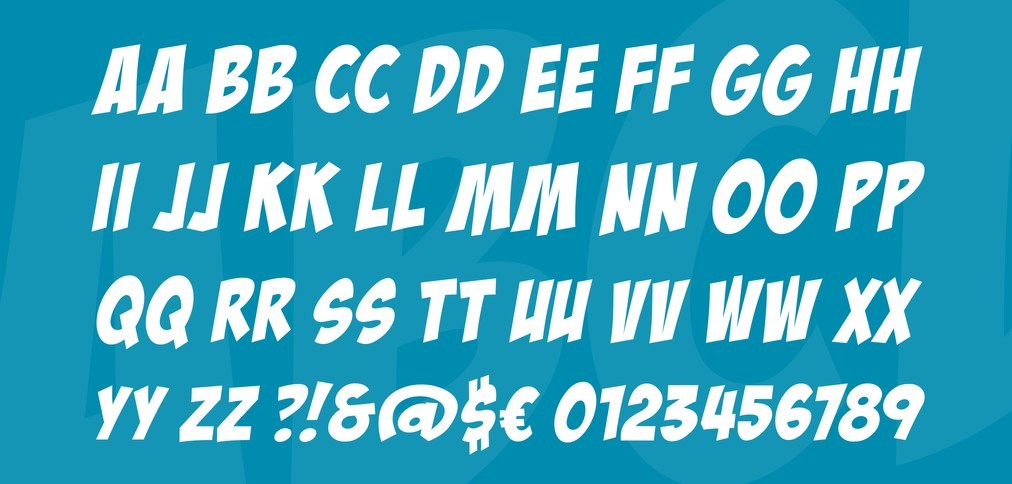
Badabum Font
Have you heard of Badabum Font? It’s the top choice when it comes to fonts by Adobe. Why? Because it falls into the category of comic fonts, adding a touch of humor and fun to any content. Want to jazz up your text with a playful twist? Give Badabum Font a try and see the difference it makes in your designs.
Style Of Badabum Font Free